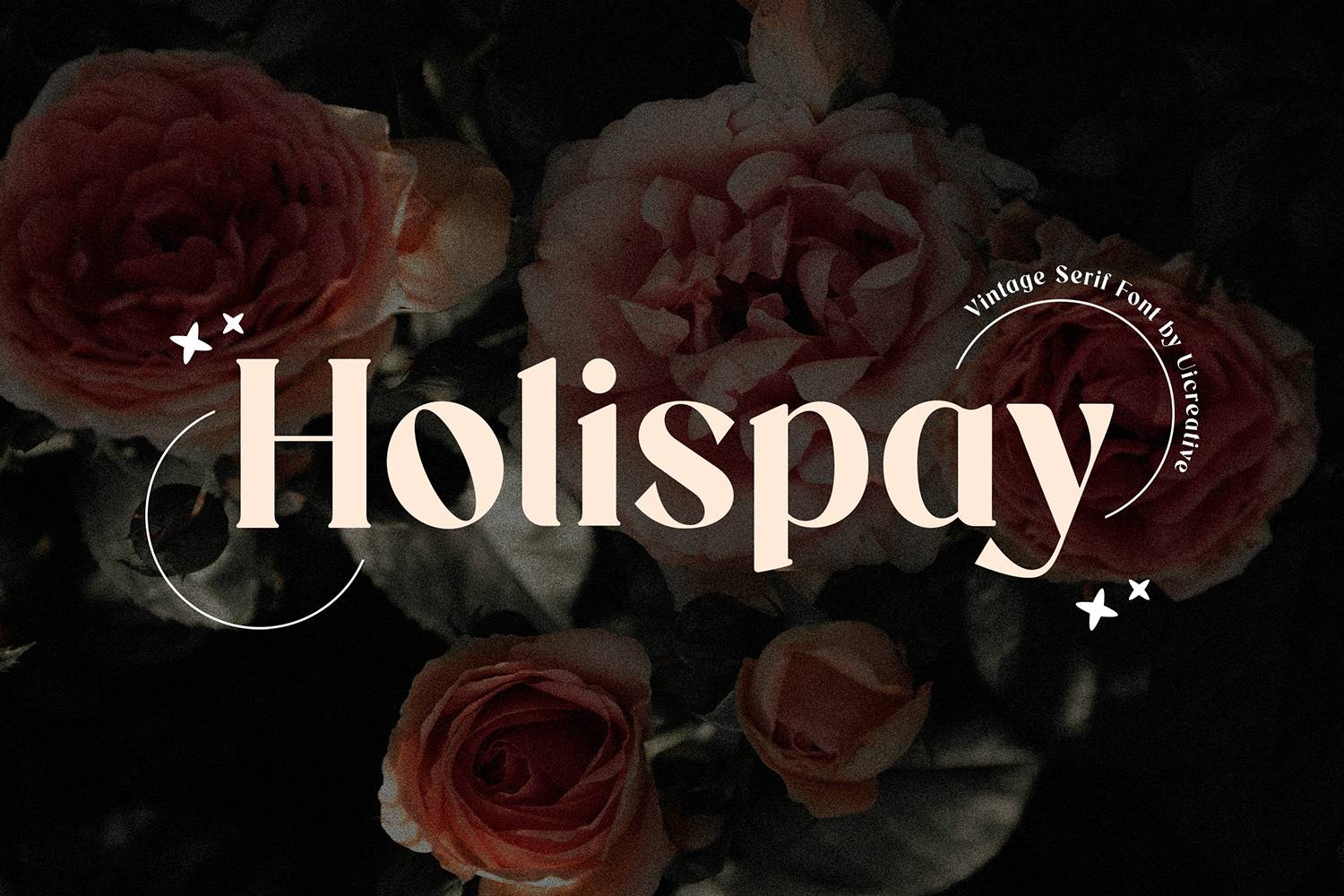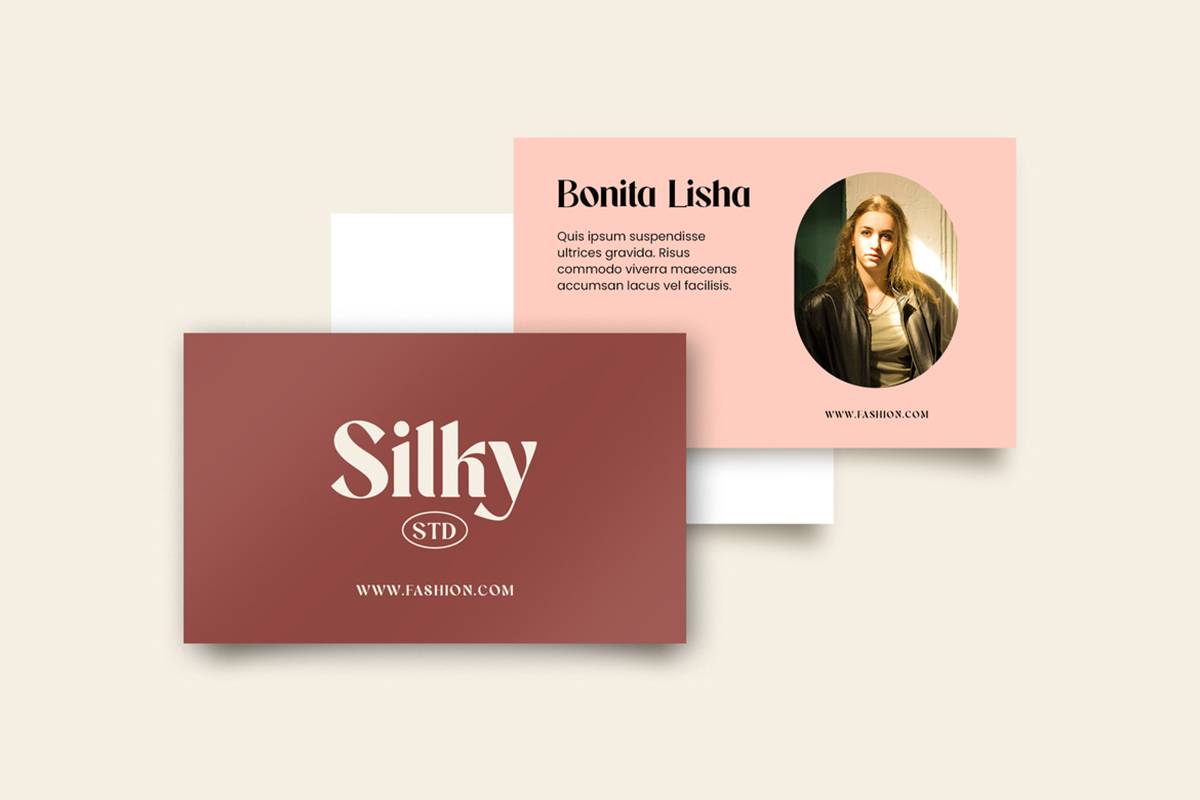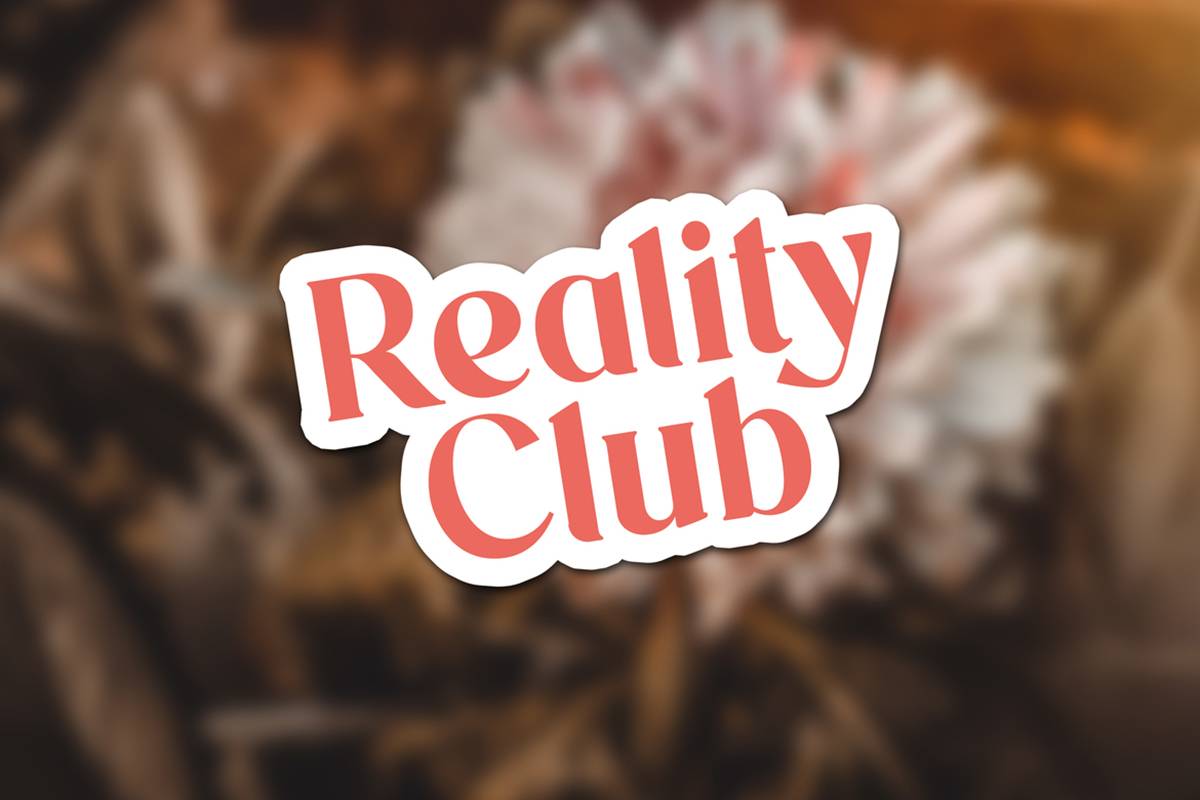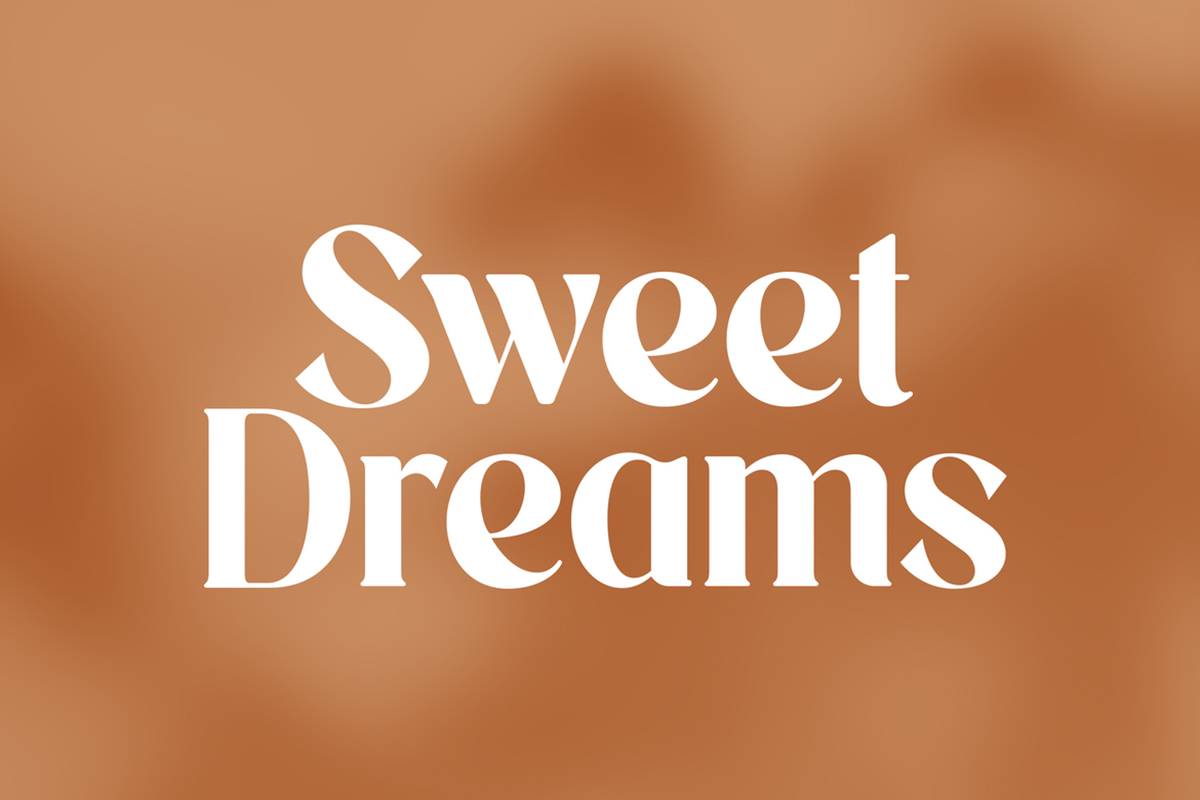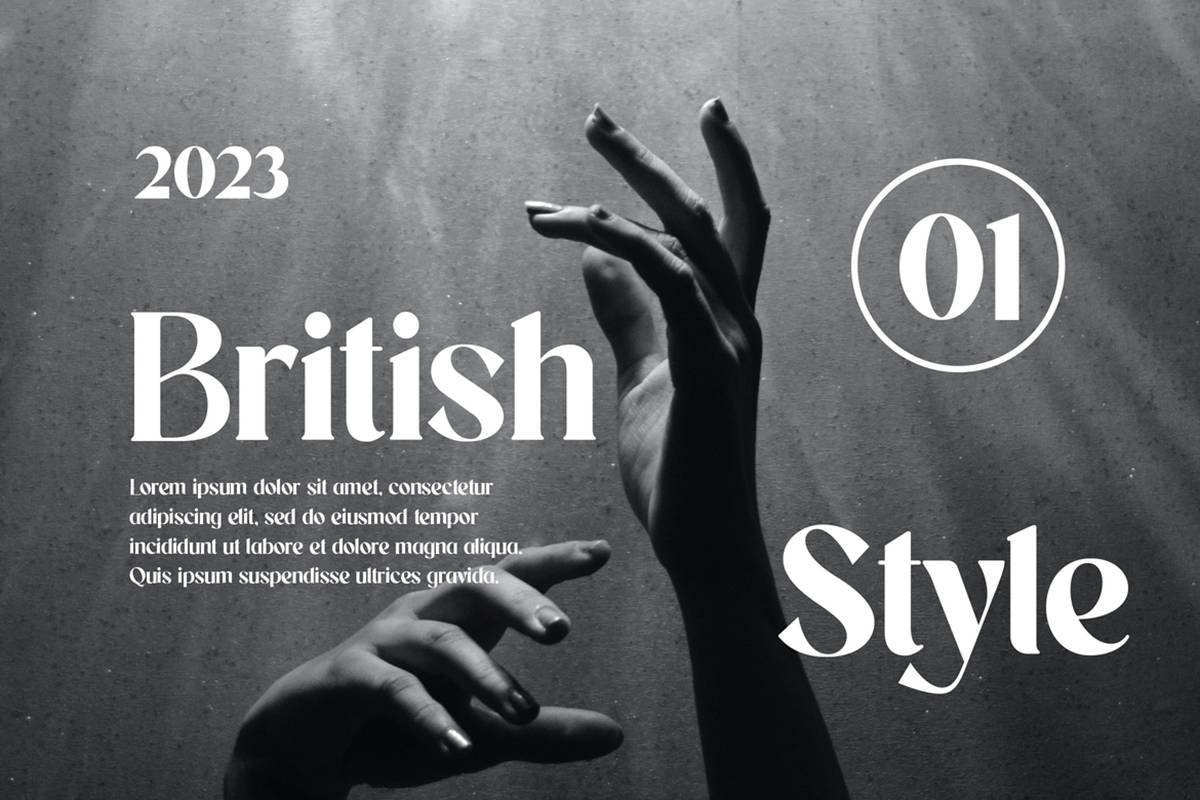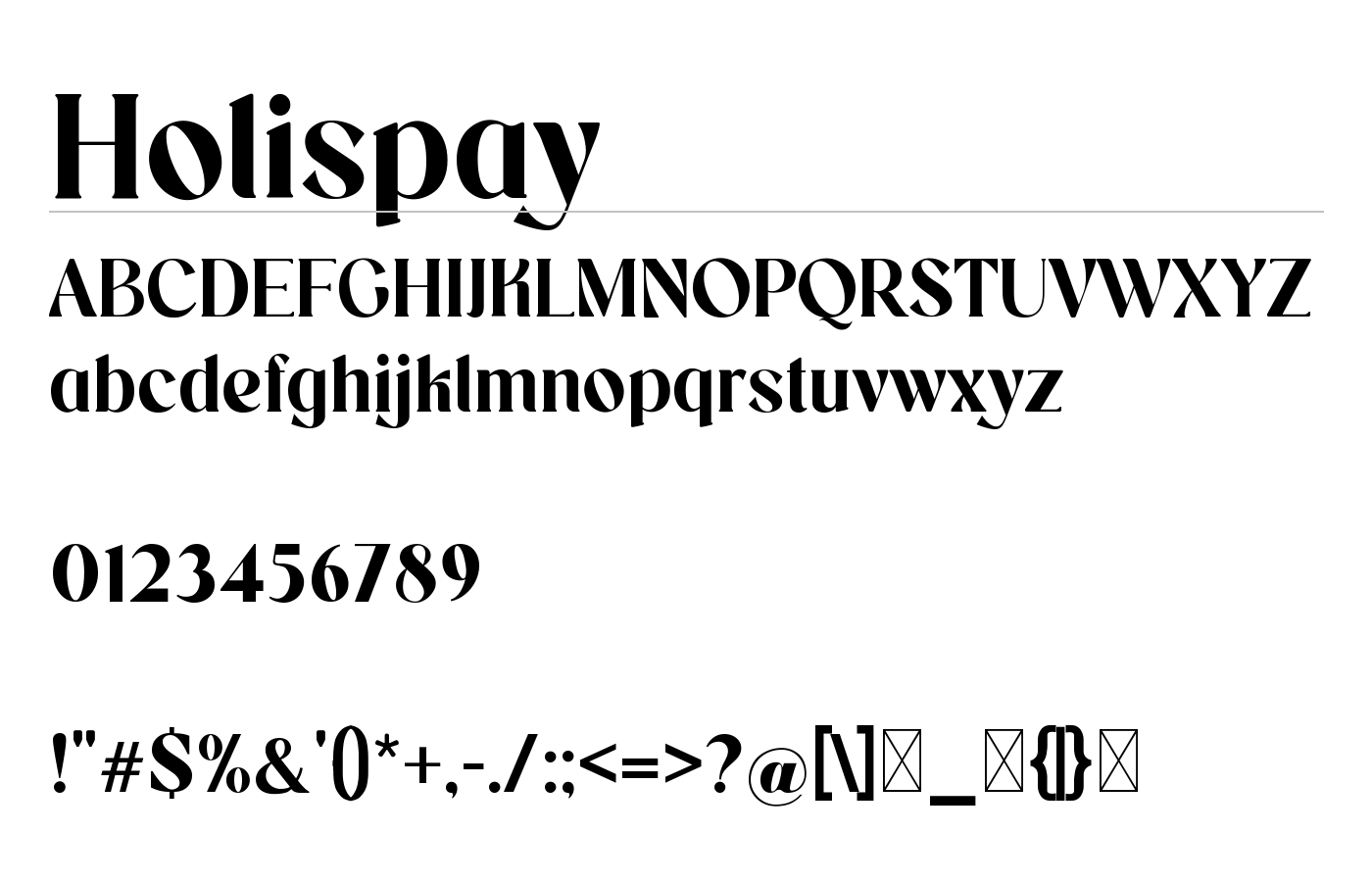
Holispay is a distinctive serif font with a modern yet elegant flair, characterized by sharp contrasts between thick and thin strokes and unique, angular letterforms. Its medium weight and balanced proportions give it a refined, sophisticated feel, making it ideal for fashion branding, editorial headlines, and luxury packaging where a touch of contemporary style is desired. This font’s bold personality and stylish curves convey confidence and exclusivity, perfect for making a striking impression in upscale design contexts.
Holispay Font
About Holispay Font